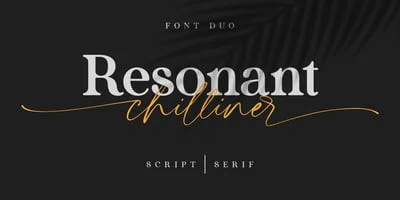
Resonant Chilliner Font
Resonant Chilliner Font is perfect for ambient music album covers, meditation app interfaces, wellness retreat branding, spa and relaxation centers, mindfulness coaching materials, chill-out lounge marketing, laid-back lifestyle brands, zen garden signage, yoga studio communications, therapeutic healing practices, peaceful home decor, and tranquil lifestyle publications.
This font is exciting because it harmonizes the deep vibrational energy of resonant frequencies with the effortless coolness of chill lifestyle aesthetics, featuring smoothly flowing letterforms that pulse with the same calming rhythm and relaxed sophistication that defines truly peaceful environments and soul-soothing experiences. The fluid character design captures both the gentle wave patterns of sound therapy and the laid-back confidence of people who have mastered the art of staying cool under pressure, creating typography that feels like a visual meditation that naturally lowers stress levels and promotes inner peace. Each letter vibrates with the kind of authentic chill energy and harmonious balance that transforms ordinary text into therapeutic experiences.
The Resonant Chilliner Font family includes regular weight with complete character sets featuring smooth numerals, relaxed punctuation marks, and decorative elements inspired by sound waves, zen symbols, and peaceful natural patterns. Advanced versions may offer additional stylistic variants with enhanced flowing effects, alternate characters that create wavelike connections, and therapeutic ornaments that amplify the resonant chill aesthetic and promote visual relaxation.
Whether you're developing wellness brand identities, creating relaxation-focused content, or designing peaceful lifestyle materials, Resonant Chilliner Font provides the harmonious vibration and effortless cool your project needs to create spaces of calm and inspire audiences to embrace the power of peaceful living. This typeface transforms ordinary text into soothing mantras that resonate with the frequencies of relaxation and promote genuine well-being. The font's therapeutic character makes it ideal for brands and practitioners focused on stress reduction and peaceful lifestyle enhancement. Wellness professionals and chill lifestyle enthusiasts will appreciate how this font brings authentic resonant calm to their work with its genuinely therapeutic and effortlessly cool character that promotes harmony and relaxation.